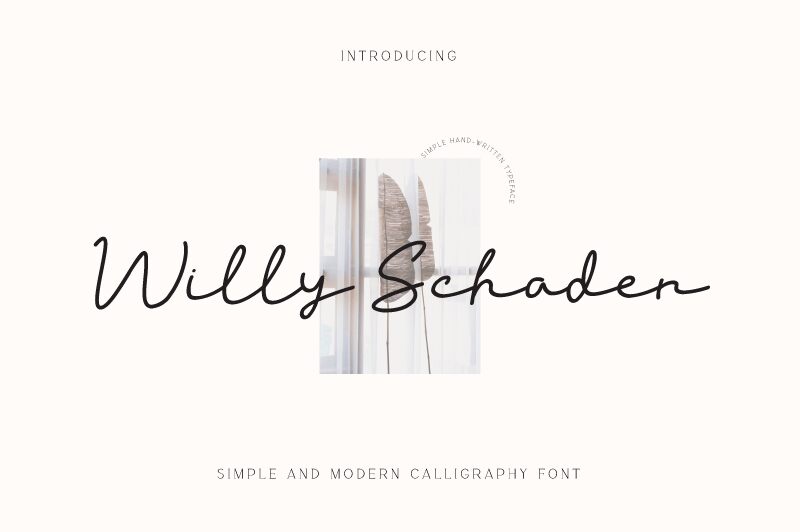
Willy Schaden font designed by Salamahtype.com is a free font with modern elegance. The font’s informal handwritten style achieves to appear minimalist, approachable, and roughly carefree, making it ideal for a variety of contemporary applications that seek a casual yet elegant touch. The soft flow of Willy Schaden’s characters adds a personal touch that isn’t always present in digital fonts.
The versatile font is perfect for use by fashion magazines, blogs, apparel or product designers, packaging, manufacturers, museums, or other creative entities. Use this for branding, headers, and any shorter texts that you feel could benefit from its exquisite informal elegance.